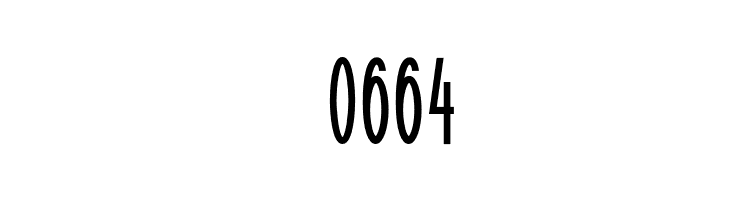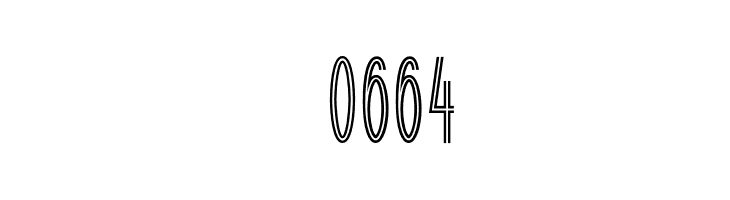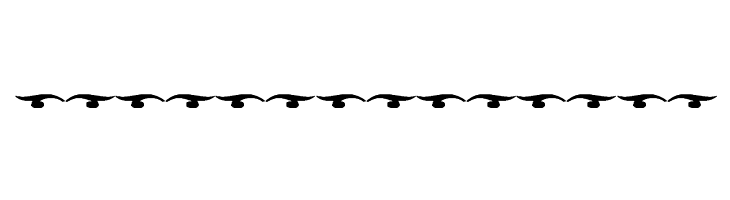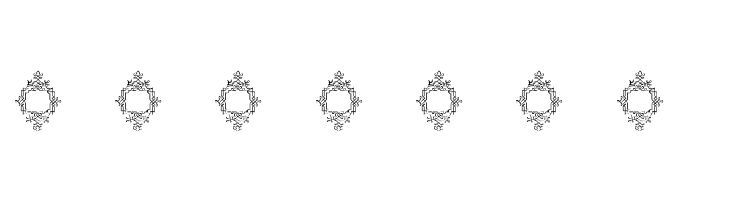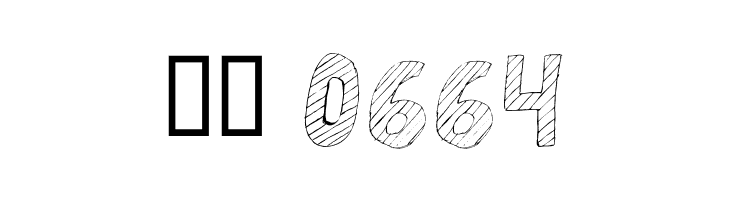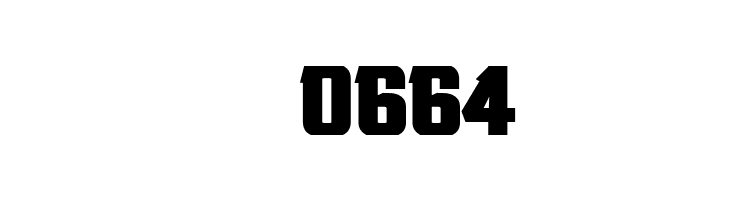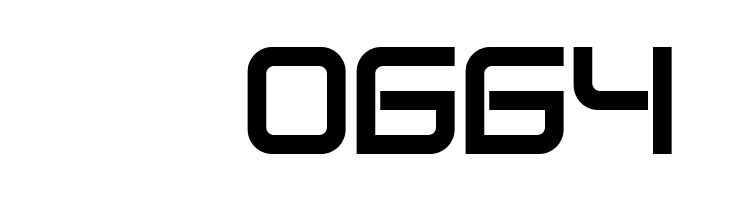
A tall, narrow font with clean lines and a modern, sleek appearance.
Ornamental geometric display set with spirograph motifs and bold rectangles.
Ornamental dingbat font with intricate circular and floral symbols.
A playful, hand-drawn chalk-style font with a textured, sketch-like appearance.
A bold, angular font with a strong, dynamic presence.
A modern, geometric font with a futuristic and technical design.
A modern, geometric sans-serif font with clean lines and balanced proportions.
A bold, geometric font with high contrast and tight spacing.
A playful, handwritten font with tall, narrow letters and a casual style.
A bold, dynamic font with a slight slant and rounded characters.
A smooth, flowing font with a modern, elegant style.
A modern, geometric font with bold, striped patterns and angular forms.
Bold, iconographic science pictograms with strong silhouettes.
Cartoonish Halloween-themed dingbat illustrations in a playful style.
A modern, geometric font with clean lines and rounded edges.
A bold, geometric font with a modernist design and strong emphasis on lines.
A decorative font with letters set in gem-like shapes, offering a luxurious and elegant appearance.
A bold, sans-serif font with characters encased in a Statue of Liberty-themed emblem.
A modern, geometric font with rounded edges and a minimalist style.
A tactile writing system using raised dots for visually impaired readers.
An elegant script font with flowing, cursive letterforms and intricate flourishes.